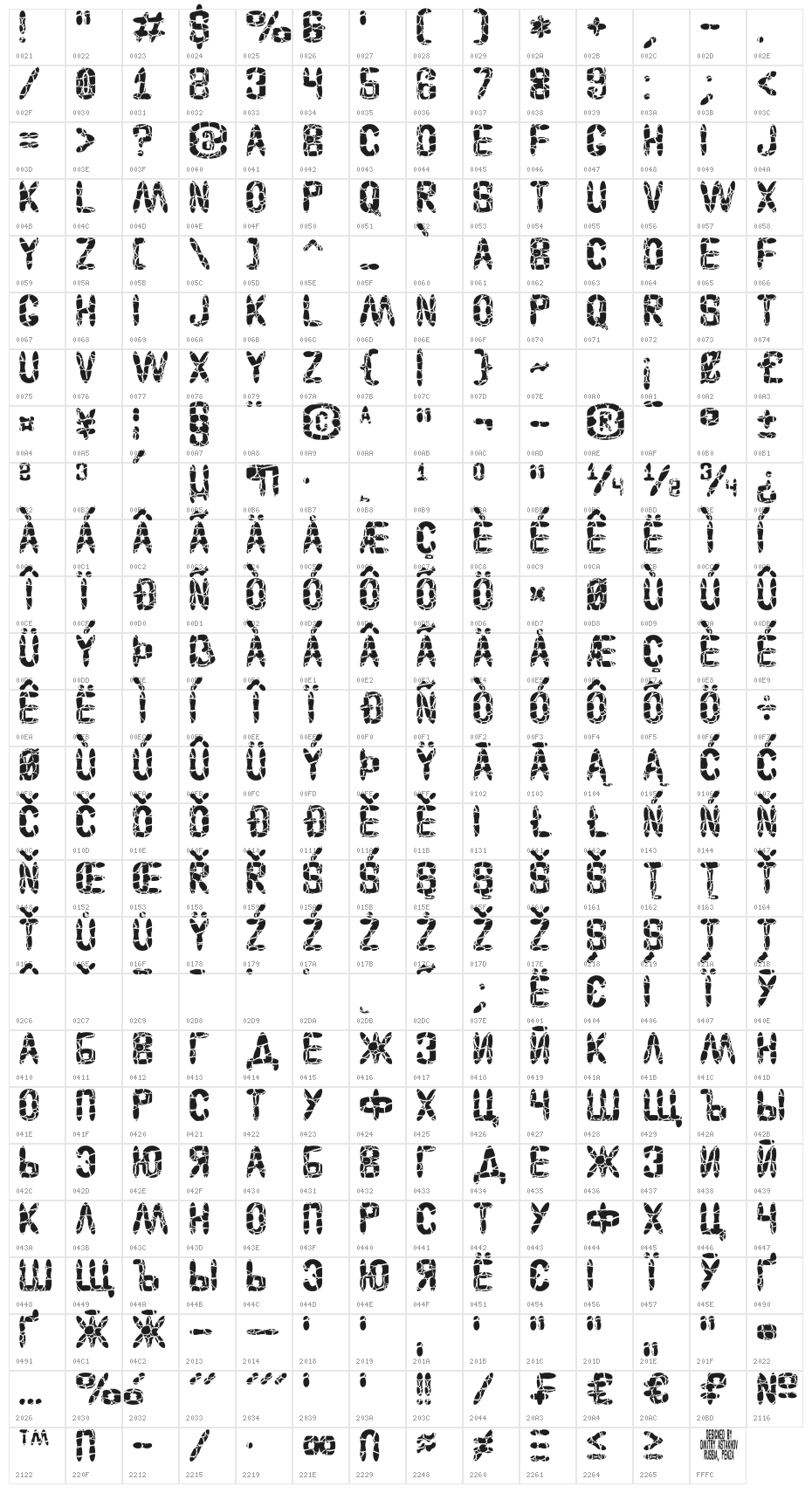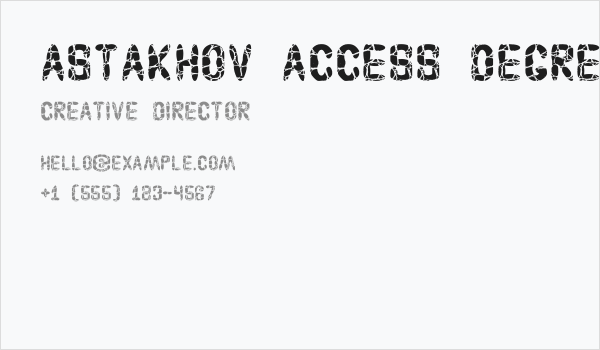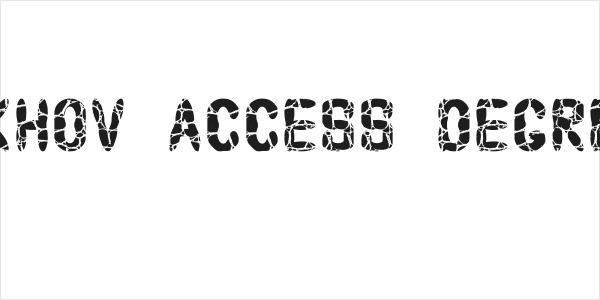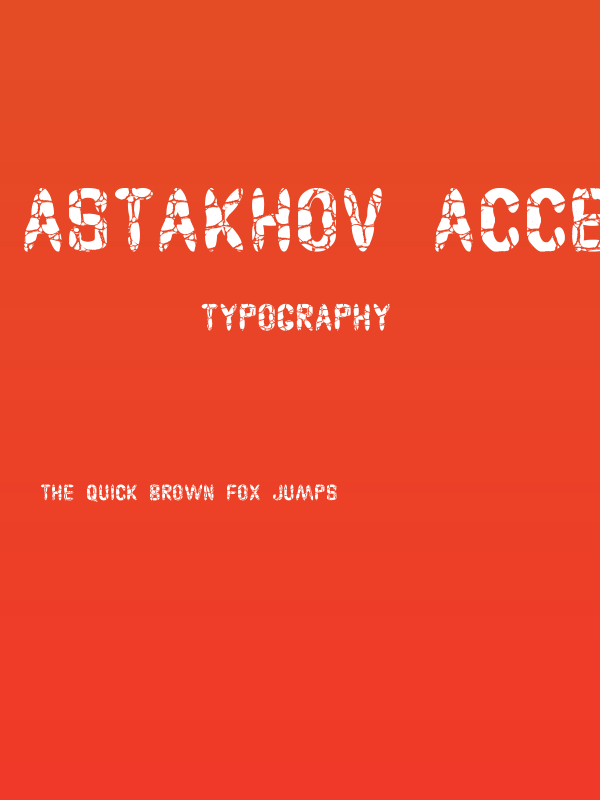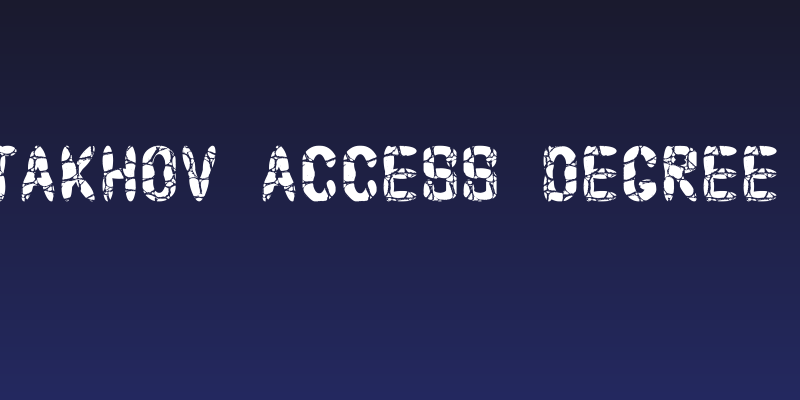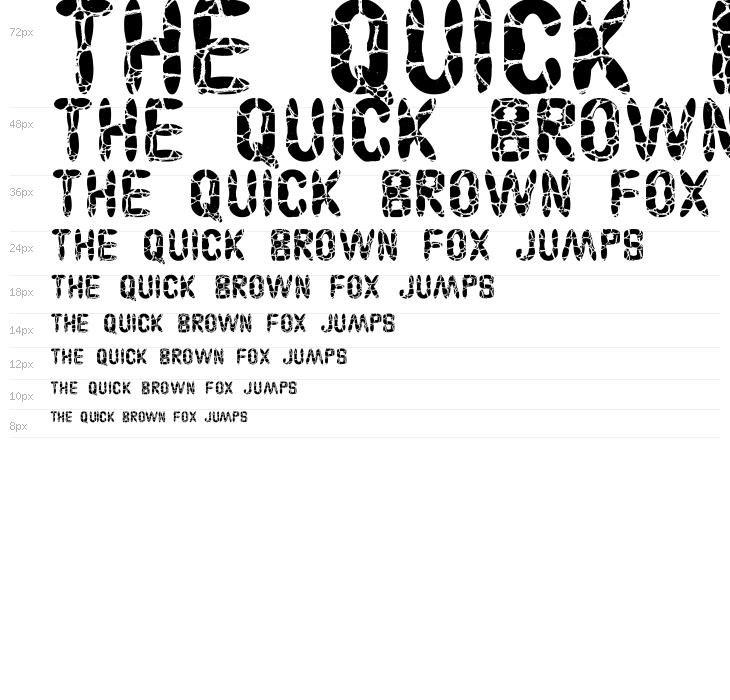
Astakhov Access Degree Sk Font
Astakhov Access Degree Sk Description
This font features a bold and striking design with a unique cracked texture that gives it a rugged, distressed appearance. Each character is filled with irregular, web-like patterns that create a sense of fragmentation and chaos, making it ideal for projects that require a gritty, urban aesthetic. The uppercase and lowercase letters maintain a consistent style, while the numbers and special characters are equally bold and textured. This font's distinct style makes it perfect for eye-catching headlines, posters, and branding materials that aim to convey a sense of edginess and modernity.
| Overall Style | Modern, Edgy |
| Use Case | Headlines, Posters, Branding |
| Proposed Projects | Ideal for posters, album covers, urban-themed branding, and edgy graphic designs. |